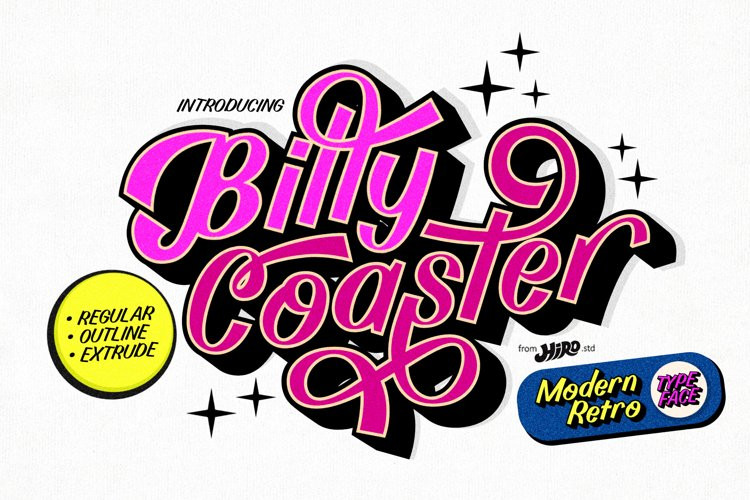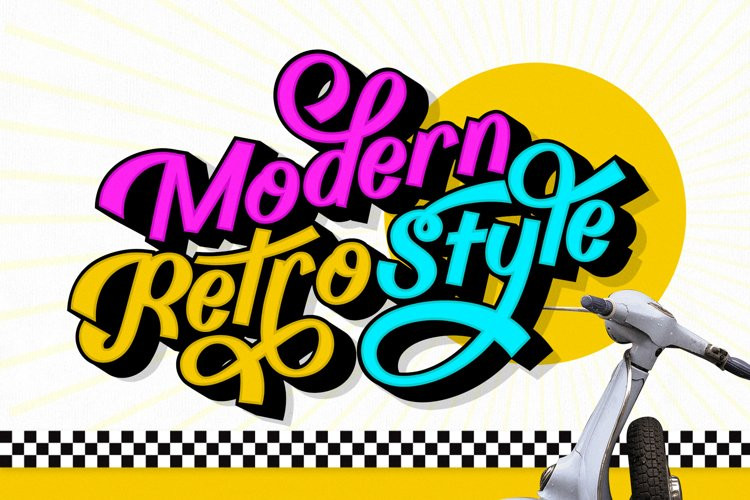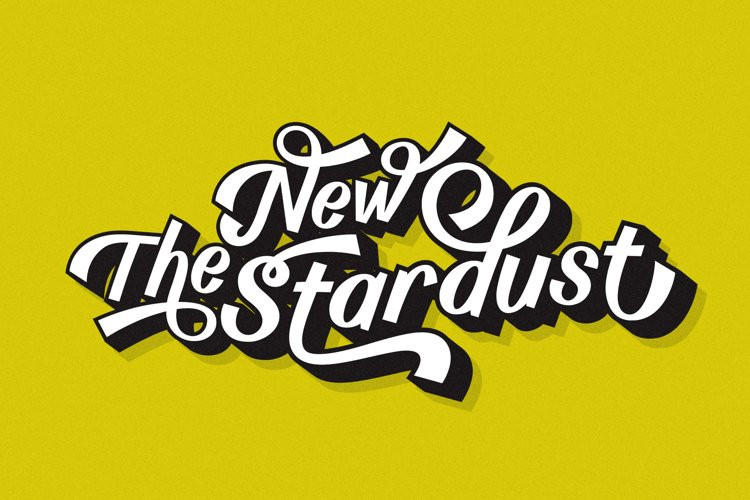
Billy Coaster Font
Billy Coaster FontBilly Coaster is a Modern Retro Typeface.
This font describes about stylist, modern retro, modern vintage, cool, and easy to use. Billy Coaster Typeface inspired from the modern retro typography and designs in late 80’s untill 90’s.